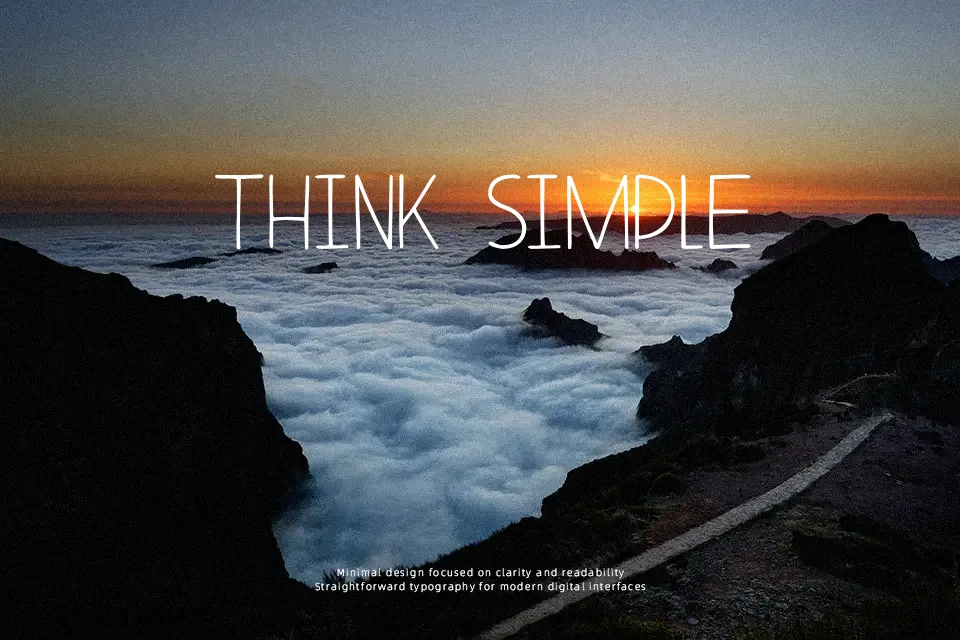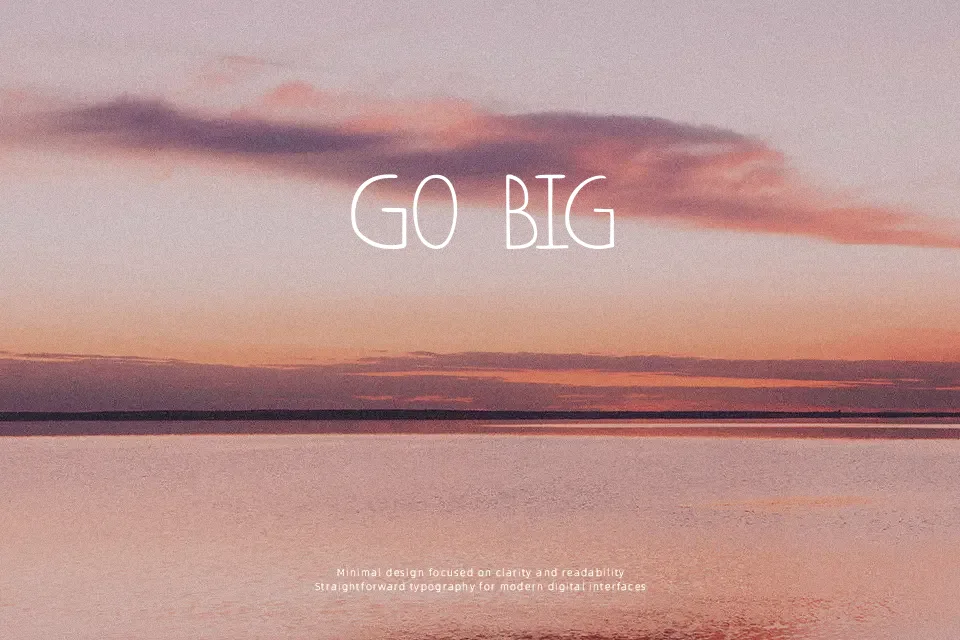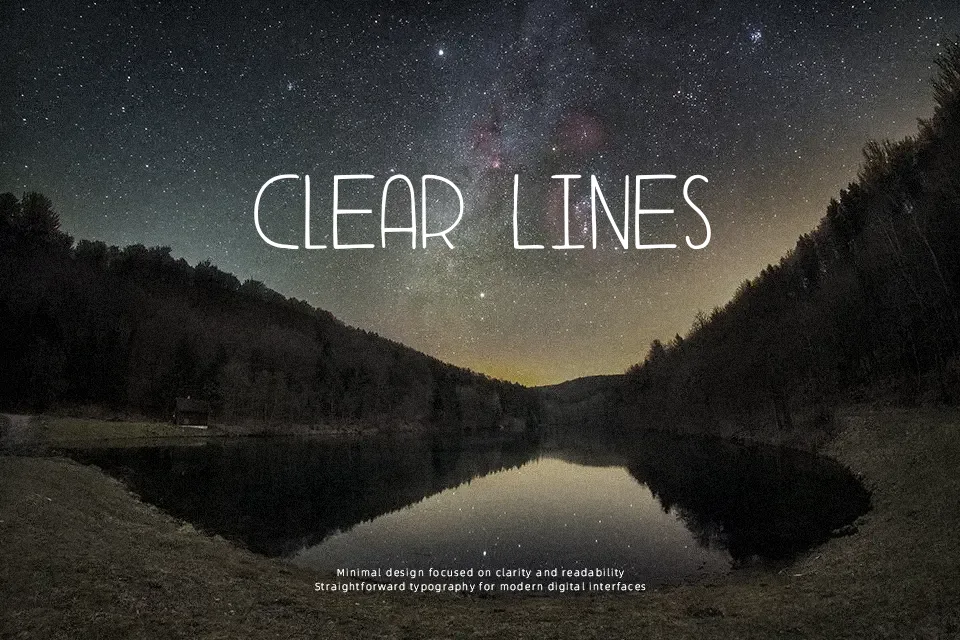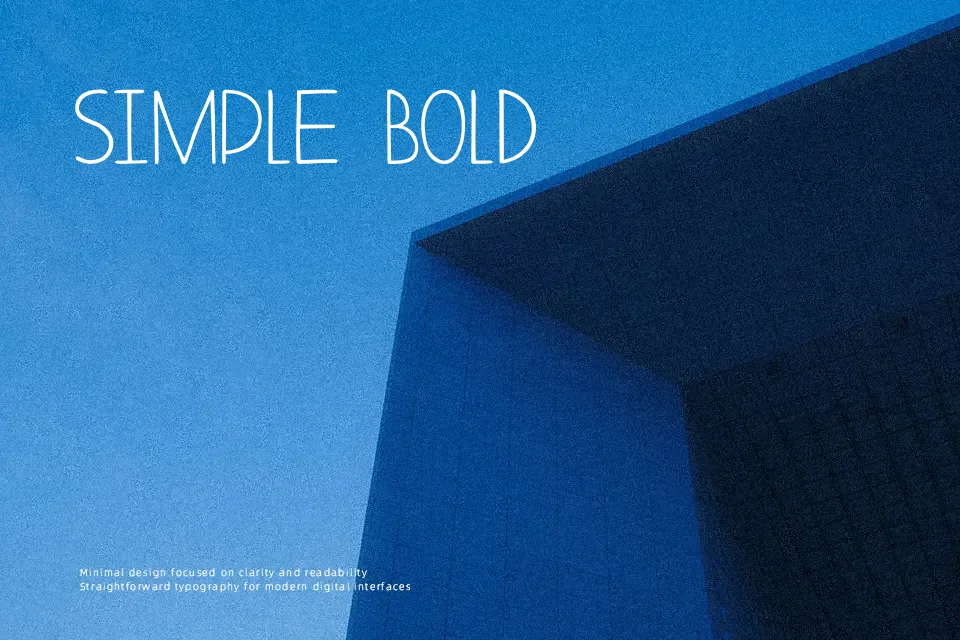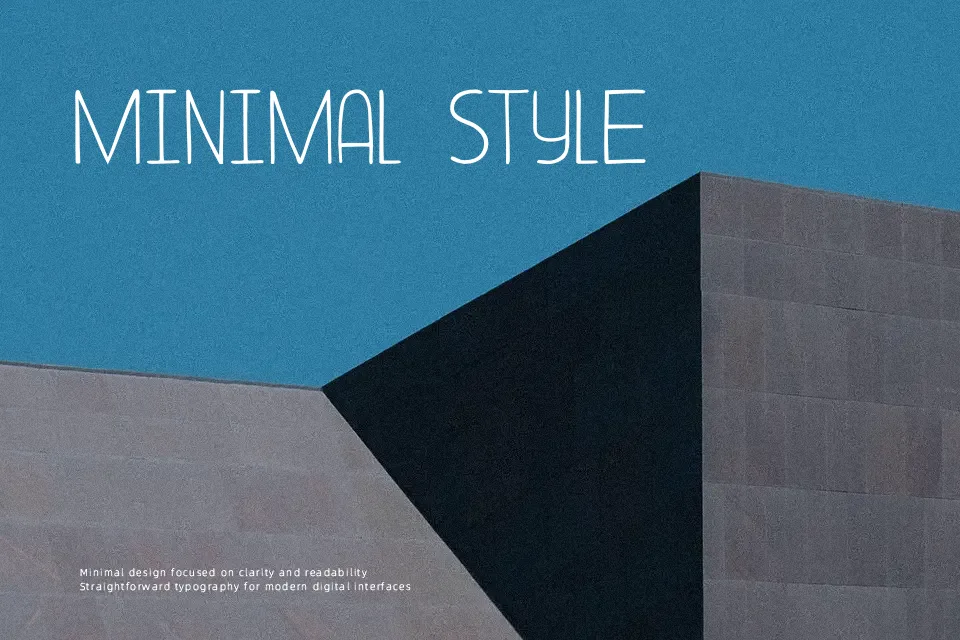
DK Aderyn Font
Designed by Hanoded
DK Aderyn has a slender, elongated structure with mostly monoline strokes, open counters, and generous spacing that gives words a calm but slightly quirky rhythm. The letterforms feel decorative rather than polished, with a handmade quality that keeps it from looking too stiff. It reads best in short headlines, product labels, café menus, and brand marks that need a light artistic touch without becoming overly cute. I would use it when the layout has room to breathe, because the narrow build looks elegant at display sizes. It is less dependable for body copy, compact mobile layouts, or corporate material where sharper clarity matters more than character.